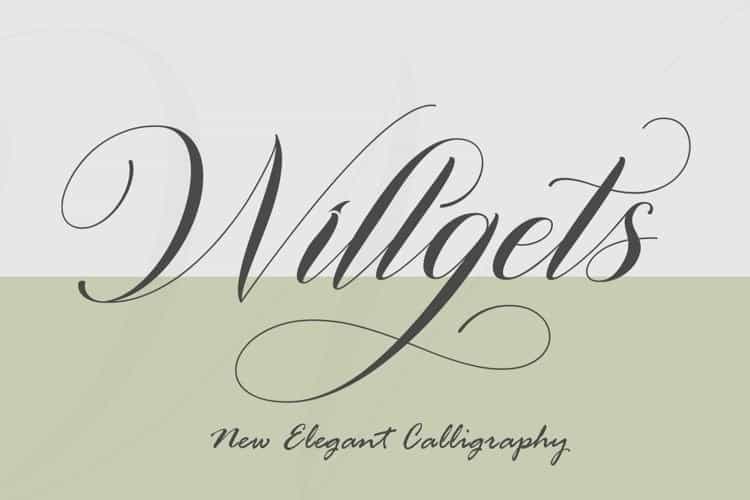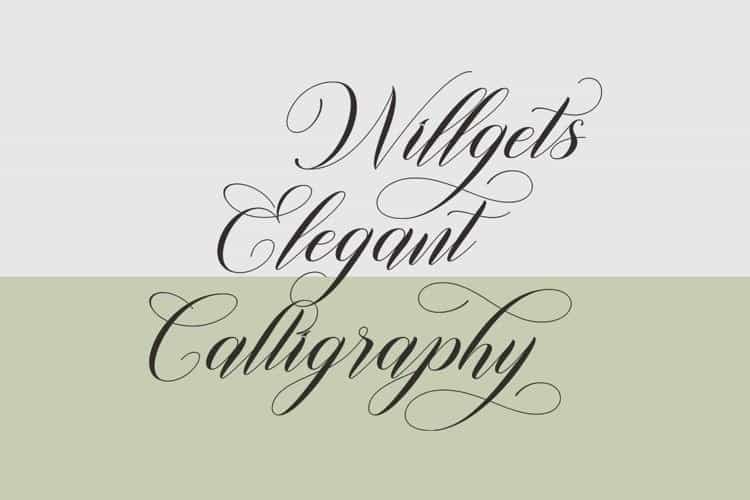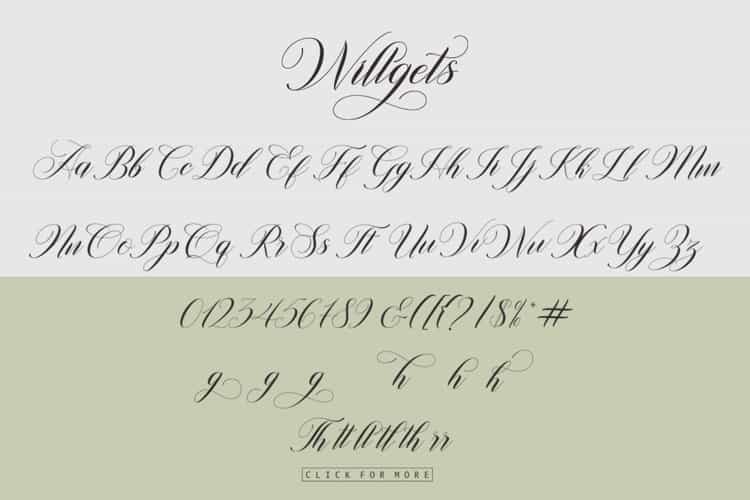
Discover Willgets Elegant Calligraphy Font, part of the Calligraphy collection—a versatile and unique font perfect for adding a personal touch to your projects. Download it for free and enjoy crafting designs with style, from invitations to social media posts. This font is available exclusively for personal use, giving you the freedom to create without limits. Unlock your creativity with Willgets Elegant Calligraphy Font today!
Willgets is an script for calligraphy font with gorgeous alternative characters. Created to add style and elegance. Willgets is a beautiful clean romantic, feminine easy to read typeface. Willgets Font is a full set of stunning both lower and uppercase lettering, global support numerals, punctuation marks, ligatures, and more to assist you in creating authentic handwriting.